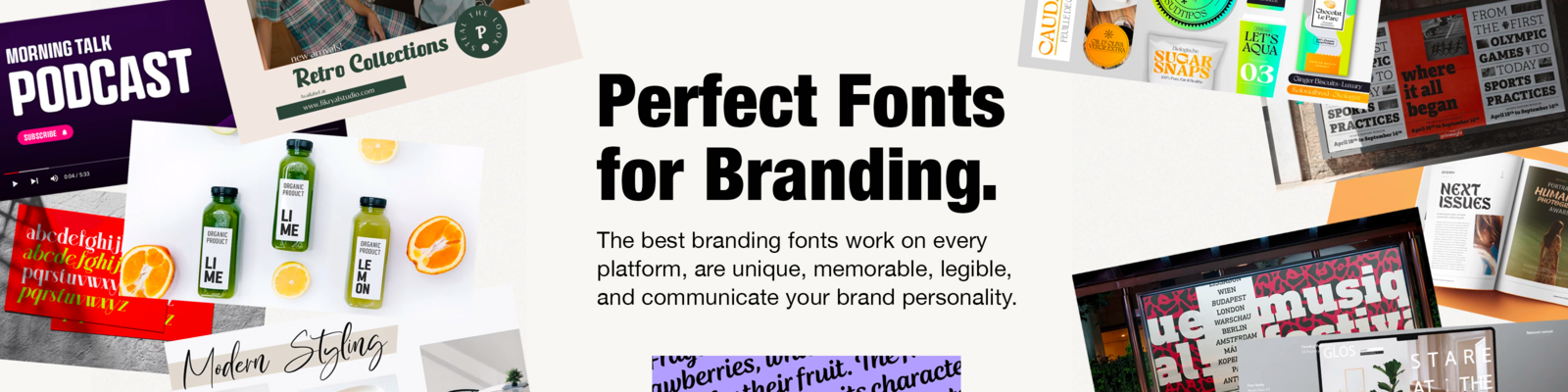
Fonts for Branding
The best branding fonts work on every platform, are unique and memorable, legible, and communicate your brand personality.
Your brand is at the core of your business, and it needs to show up in every aspect of your marketing. And that includes your logo, stationery, and packaging. Creating a consistent & unique brand design is a large part of what we do every day.
Starting a new company is hard. Everyone’s been there; you’re trying to figure out how to come up with a name, logo, design–the list goes on. Don’t worry, we can help! Before jumping into fonts, put together a brand personality so you know what elements of your brand you want to convey.
Nailing down the brand’s personality, before jumping into the world of fonts, can be a major help! A clear brand personality will be what your customers relate with, connect to and remember you for. Think of words that best describe your brand and how you want to be seen, for example, trustworthy, classic, fresh, elegant, quirky or even dramatic.
Which font styles match these personality traits?